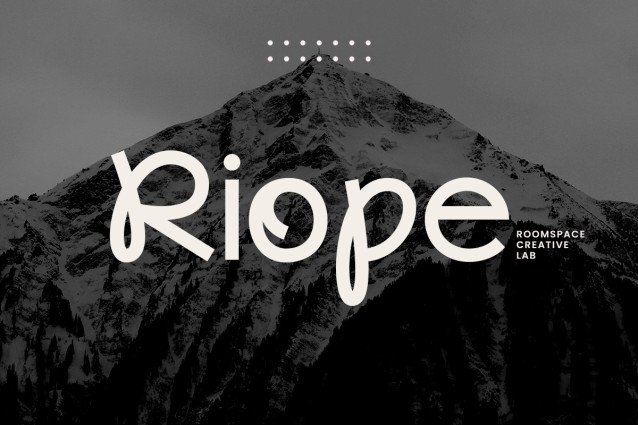
Riope Font
Riope Font – A modern sans serif font designed to provide the perfect balance of letterforms. Riope offers creativity and uniqueness with alternate characters inspired by mono-line scripts, while maintaining high readability. With a modern futuristic style, Riope is versatile enough for a variety of design applications such as branding, logos, posters or even packaging. Riope offers exceptional flexibility with its modified character styles, allowing for a creative design experience. Whether you are a designer or a business owner, this font will enhance both the artistic and functional aspects of your projects.